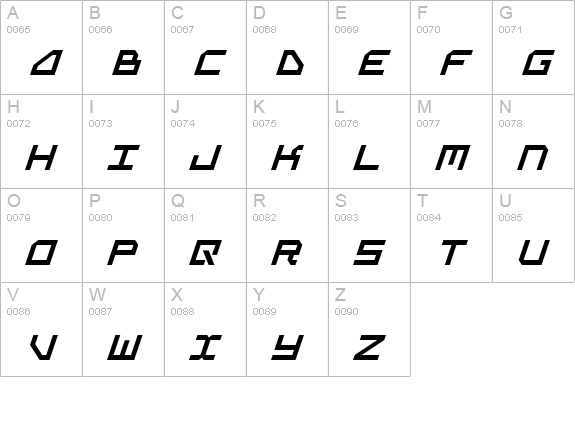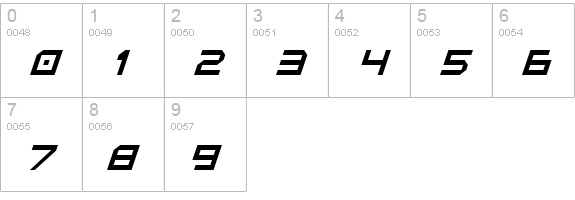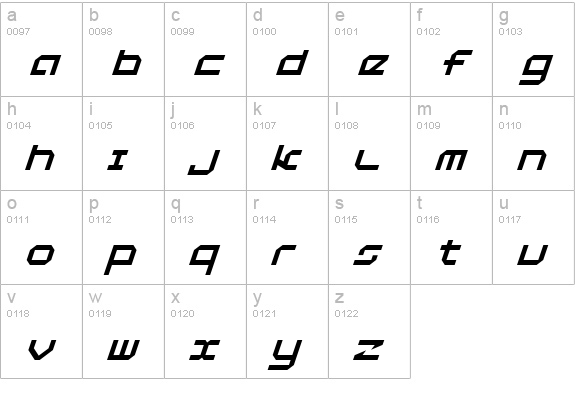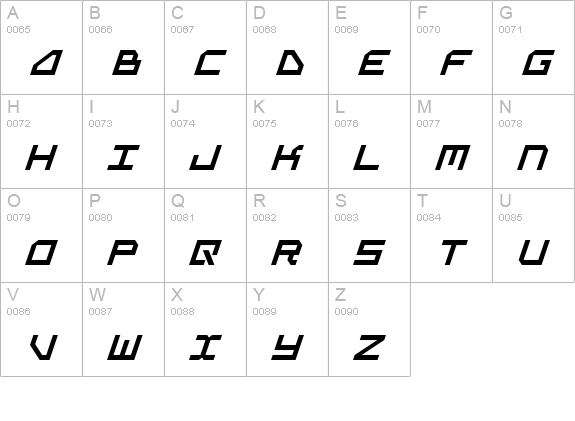
5th Agent Italic is a distinctive, italic variant in the 5th typeface family \xE2\x80\x94 well suited to design and typography projects.
The 5th Agent Italic font exudes a sense of sleek sophistication with its elegant slanted style. Perfect for adding a touch of modern flair to any design project, this font features clean lines and a contemporary aesthetic that is sure to catch the eye. Whether you're creating a stylish logo, designing a sleek website, or crafting a sleek print piece, the 5th Agent Italic font will elevate your work to the next level. Best of all, this font is available to download for free at FontsMarket.com. With just a few clicks, you can add this versatile typeface to your font library without breaking the bank. Don't miss out on the opportunity to enhance your designs with the 5th Agent Italic font - download it today and see the difference it can make!